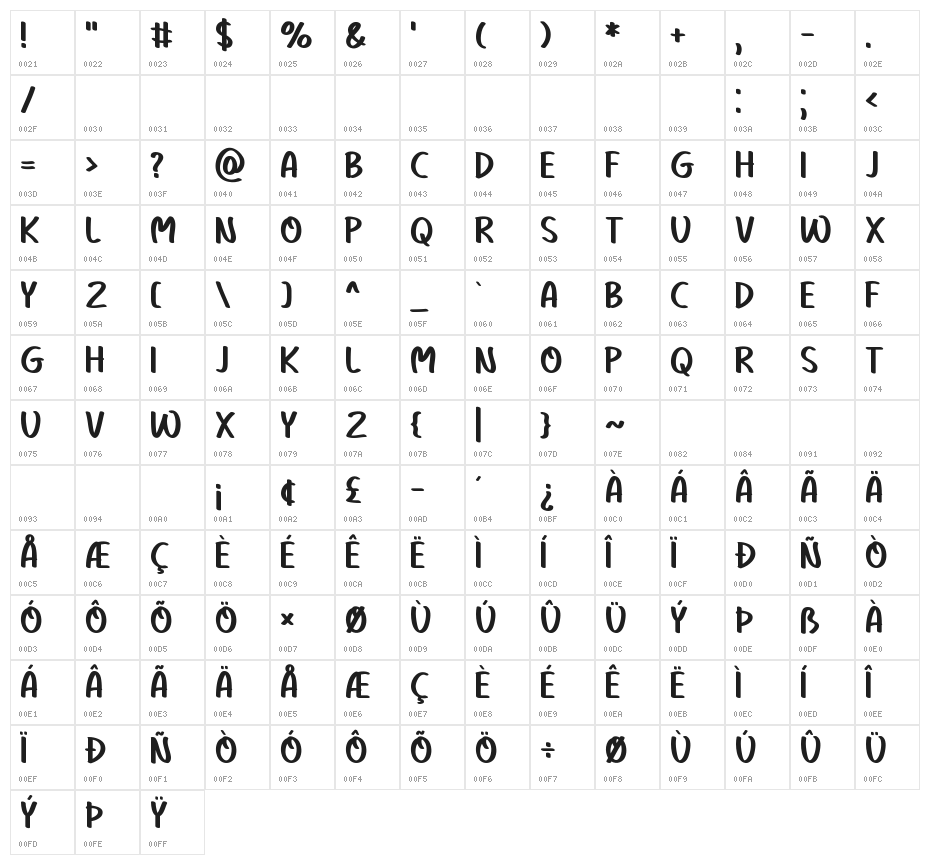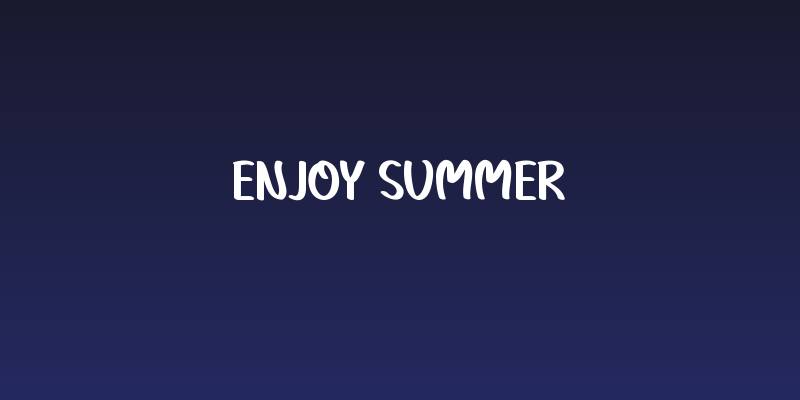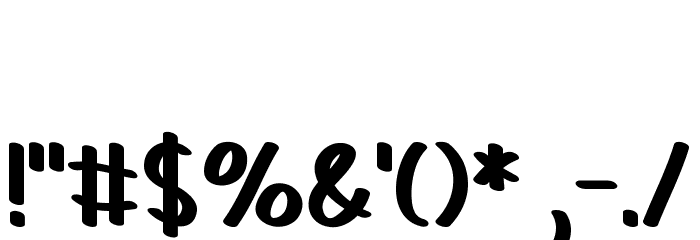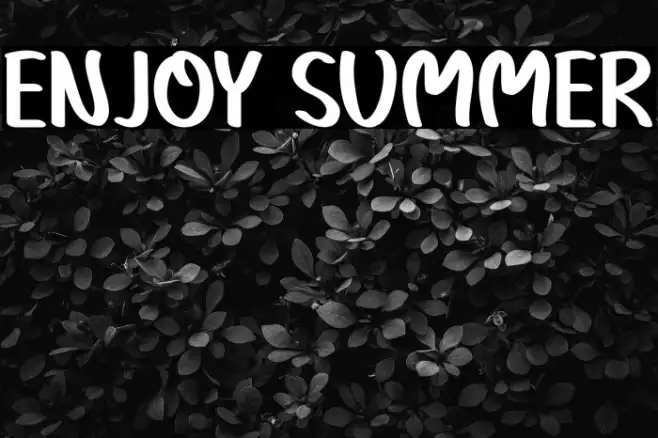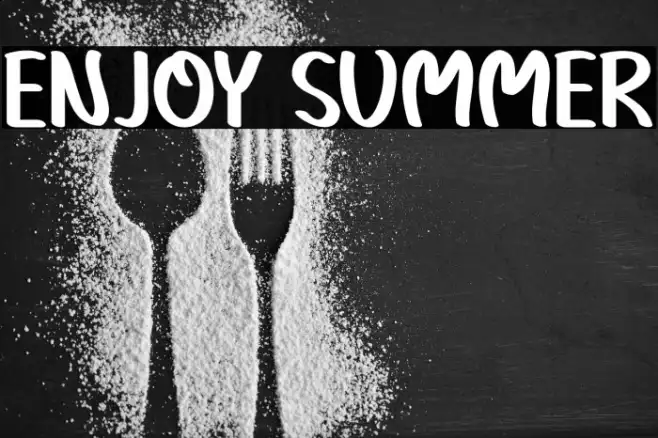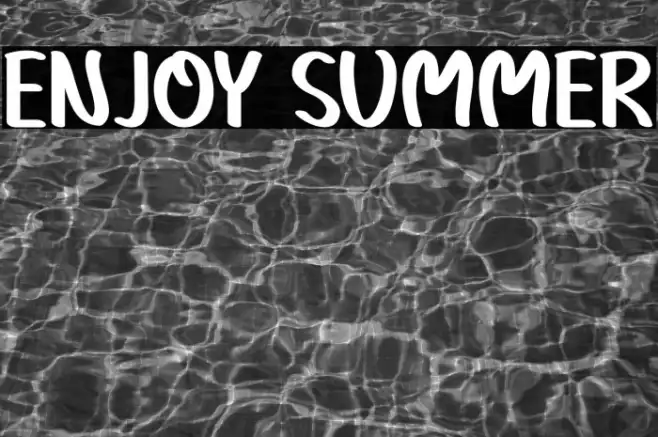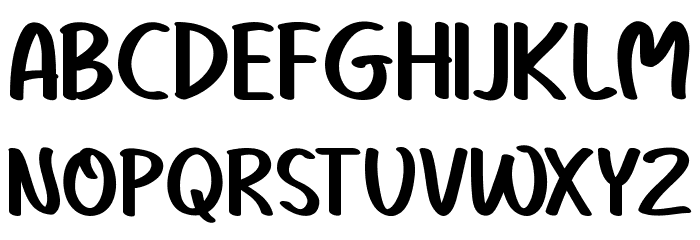
Enjoy Summer Font
Enjoy Summer Description
This playful and energetic font features bold, rounded characters with a hand-drawn feel, exuding a sense of fun and creativity. The strokes are thick and consistent, giving it a strong presence while maintaining a casual and approachable vibe. The letters are slightly slanted, adding a dynamic flow to the text. The font includes both uppercase and lowercase letters, as well as a variety of special characters, making it versatile for different design needs. Its unique style is perfect for projects that require a touch of whimsy and personality.
| Proposed Projects | Ideal for children's books, playful branding, event posters, and social media graphics. |